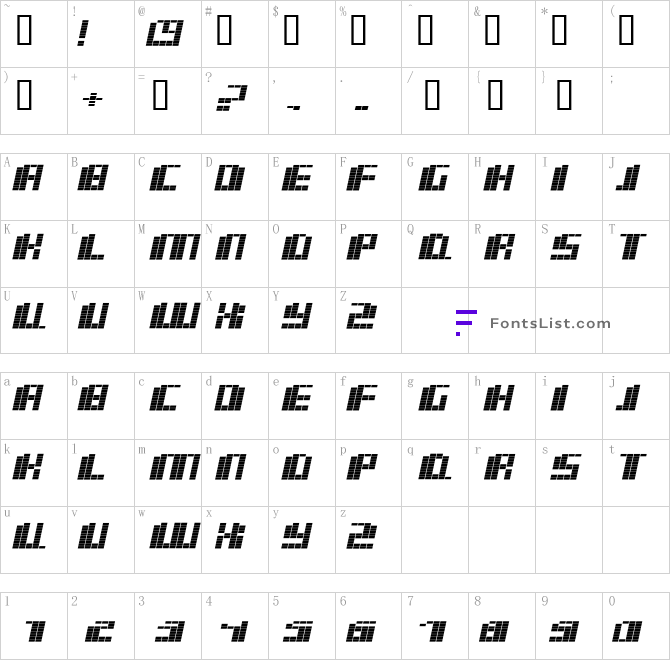
• Font Name:basm
• Subfamily:Italic
• Subfamily:Macromedia Fontographer 4.1.3 basm Italic
• Full Name:basm Italic
basm-Italic.ttf is a very beautiful artistic font, basm-Italic.ttf is widely used in the design and printing of various books and pictures,basm-Italic.ttf has a strong visual impact,basm-Italic.ttf is a commonly used font in newspapers, magazines and books, and is used in posters, e-commerce Poster design, store design, logo design, font design and other fields.basm-Italic.